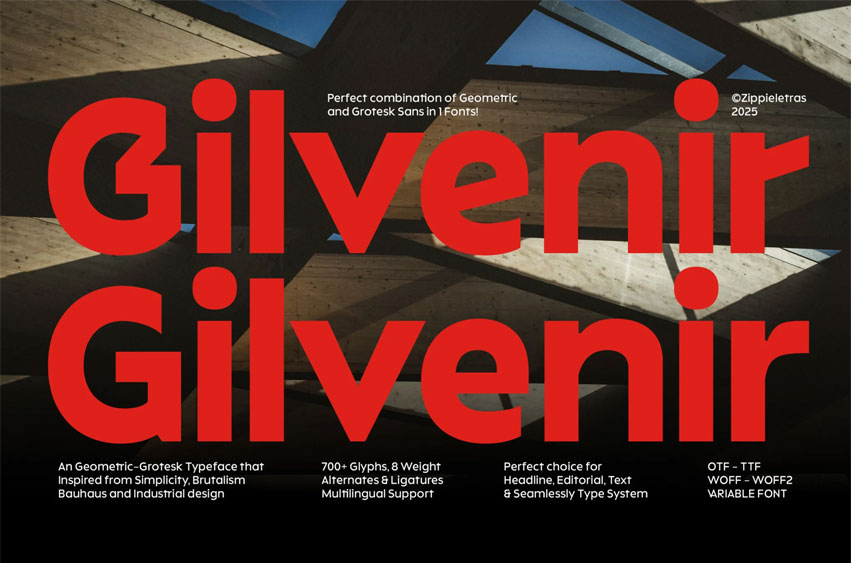
Gilvenir Font is a modern geometric-grotesk sans serif designed for brands that value clarity, strength, and timeless style. Inspired by the balance of Bauhaus geometry, Modern Simplicity, industrial precision, and brutalist sharpness, Gilvenir works seamlessly across display and text, making it ideal for logos, websites, signage, editorials, and Brand Identity.
The most distinctive characters — G, K, M, N, R, a, t, y — carry a refined yet professional voice, while Stylistic Set 01 (SS01) transforms key letters (A, G, K, M, N, Q, R, Y, a, e, f, g, k, r, t, y) into sleek, modern alternates. Combined with smooth ligatures, these features make Gilvenir adaptable for both serious corporate applications and expressive modern campaigns.
With 8 styles ranging from Extralight to Black, Gilvenir provides flexibility for bold headlines, precise signage, and highly readable body text. Available in OTF, TTF, WOFF, WOFF2, and Variable Font formats, it performs flawlessly across print, web, and digital platforms. Supporting Basic Latin and Extended Latin, Gilvenir is a global-ready typeface that ensures your brand communicates with confidence everywhere.
Personality “Gilvenir” – a corporate geometric-grotesk with industrial precision for your brand Identity.
Feels like:
*Corporate brand systems *Modern architecture and industrial design *Editorial spreads and annual reports *Digital platforms with bold UI *Signage for global companies
Best For
*Corporate and modern brand identity *Editorial design and magazine layouts *Websites and UI typography *Global signage and packaging *Logo design and professional wordmarks *Posters, campaigns, and headlines with impact